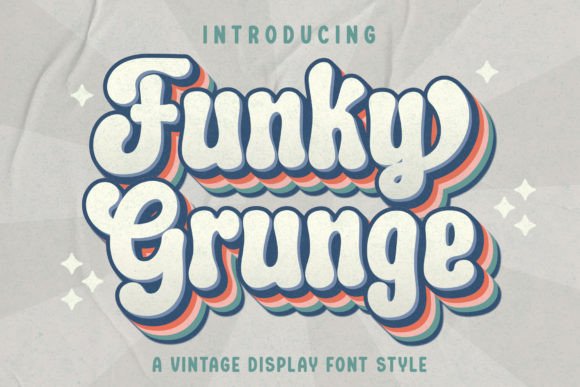
Introducing the Funky Grunge Font, a striking and cool vintage-style display font designed by the creative team at Hoperative Design. This unique font is the perfect way to add a retro touch to your design projects and elevate your brand's image.
The Funky Grunge Font is perfect for creating logos, branding materials, invitations, stationery, wedding designs, social media posts, and so much more! Its bold and eye-catching style will make your designs stand out and capture the attention of your audience.
This font is designed to bring an old-school, retro vibe to any project. The distressed and grungy style of the letters gives them character and personality, making them perfect for adding a touch of nostalgia to your designs. Whether you're creating a vintage-inspired logo or a retro wedding invitation, the Funky Grunge Font will help you achieve the perfect look.
With its wide range of uses, the Funky Grunge Font is a versatile addition to any designer's toolkit. Whether you're a professional graphic designer or just starting out, this font is easy to use and will help you create stunning designs that truly stand out.
In conclusion, the Funky Grunge Font is an essential tool for anyone looking to add a touch of vintage flair to their designs. Its unique style and versatility make it a must-have for designers of all levels. So why wait? Download the Funky Grunge Font today and take your designs to the next level!